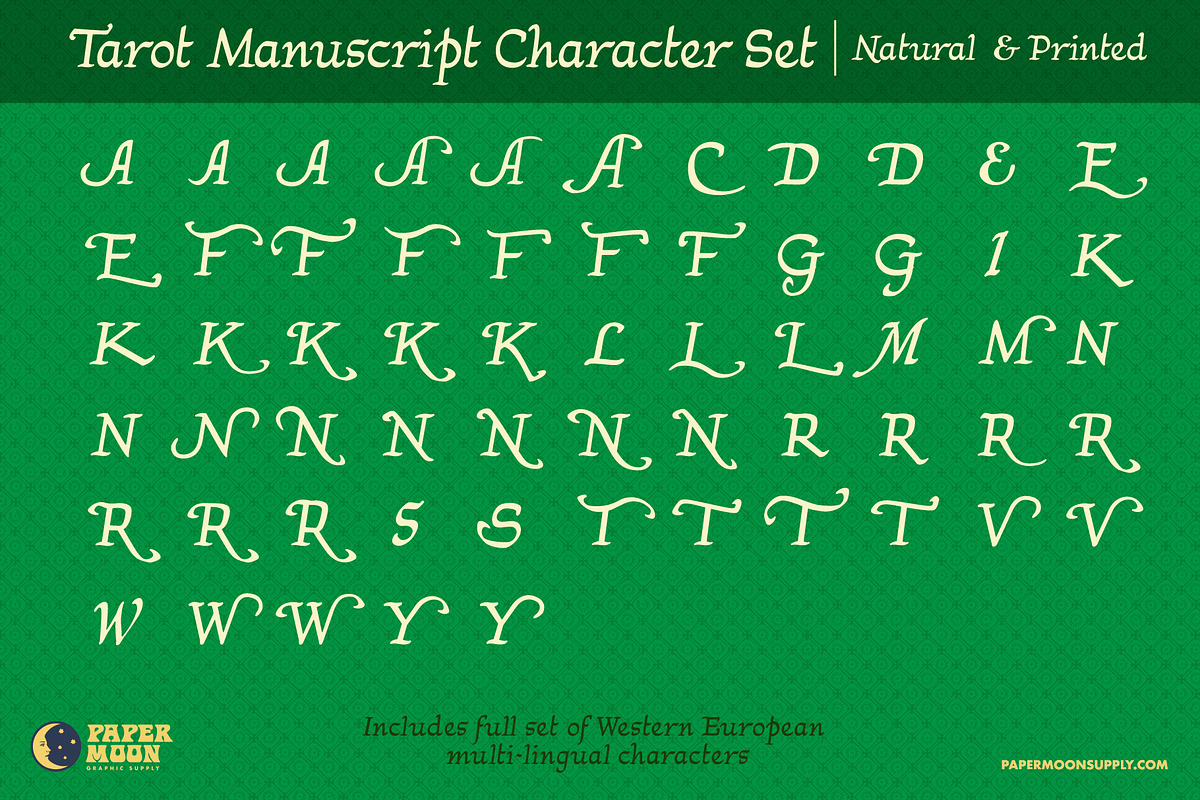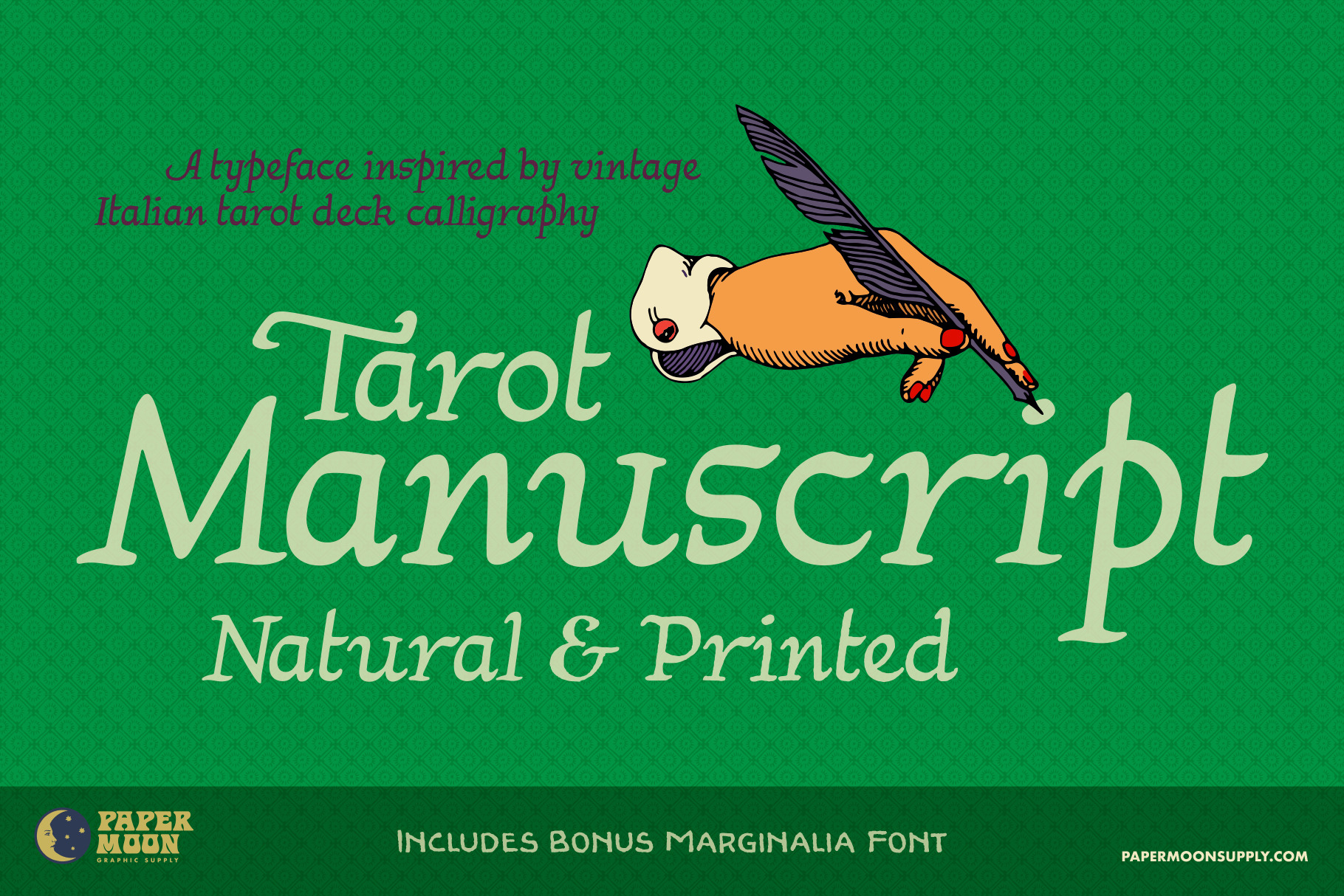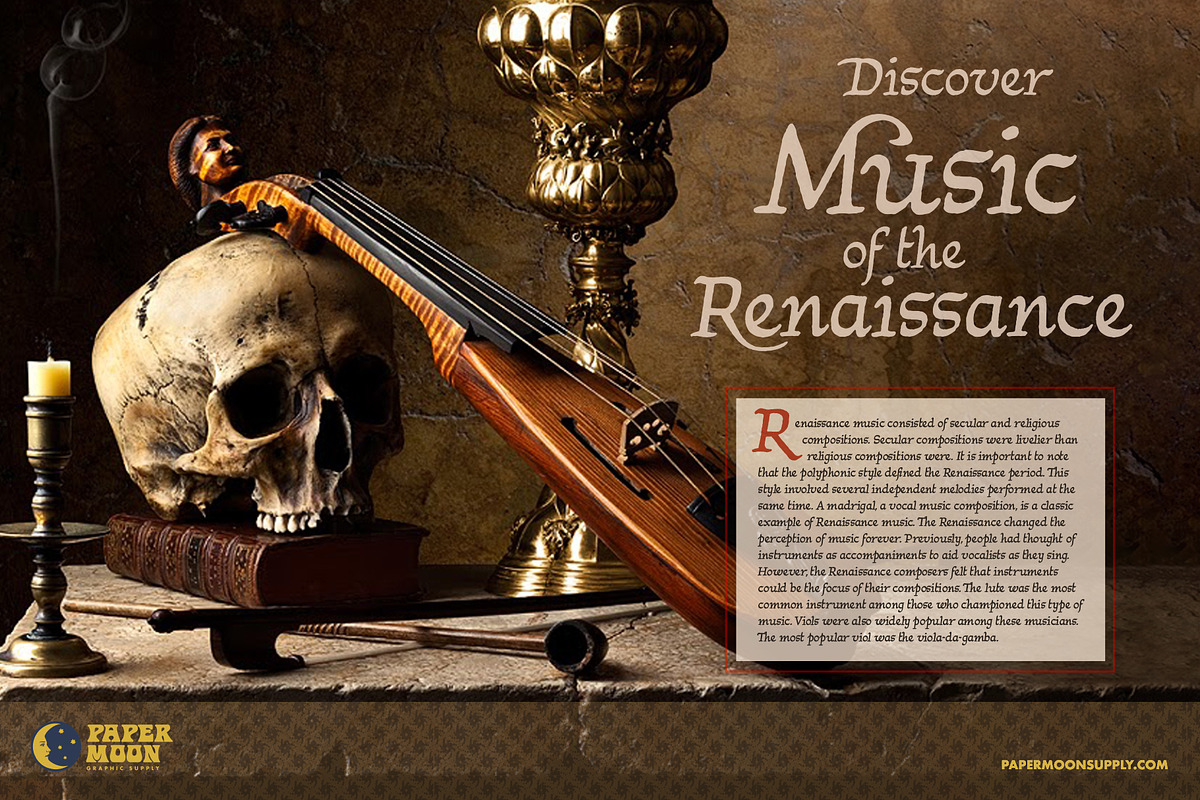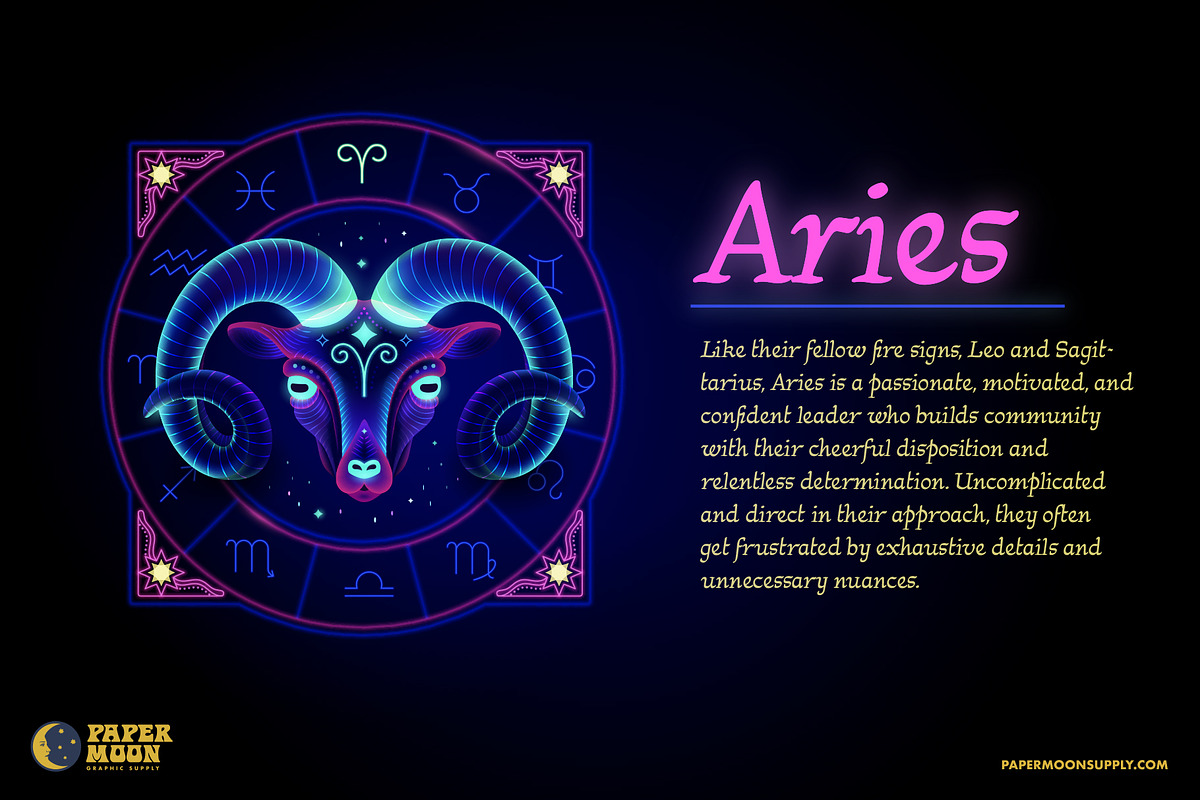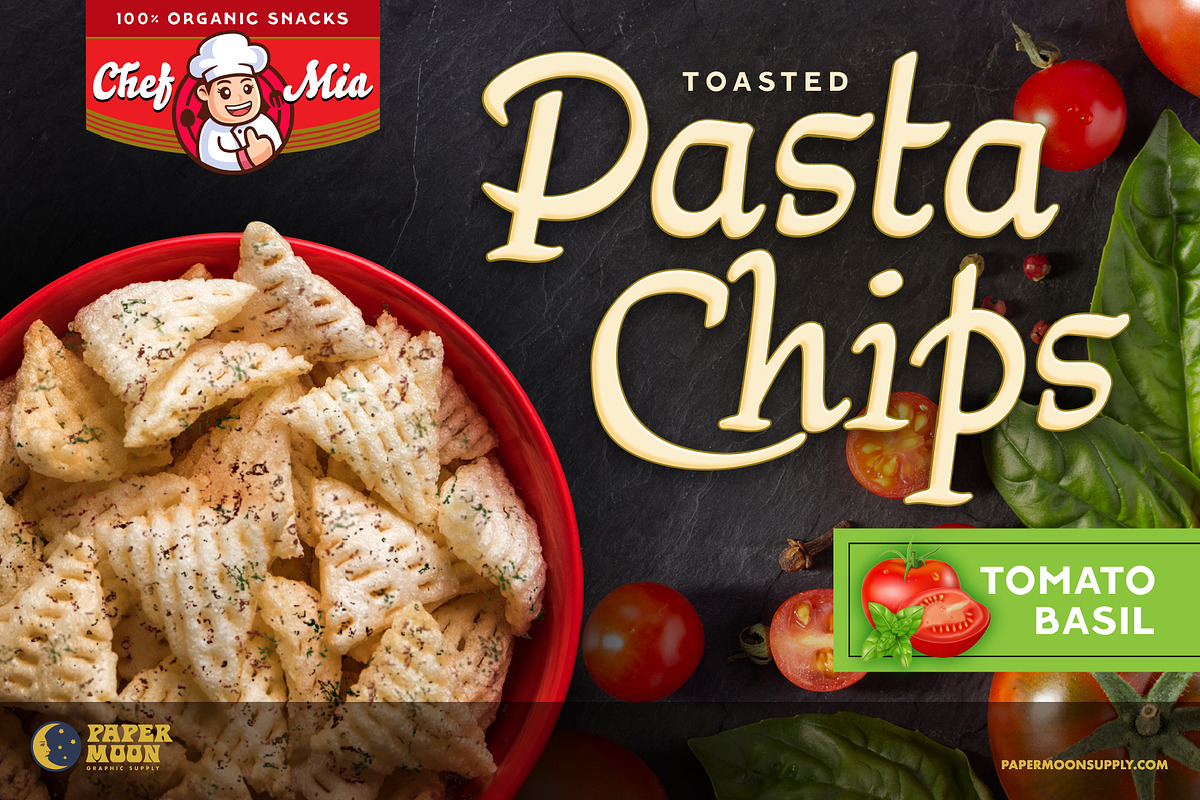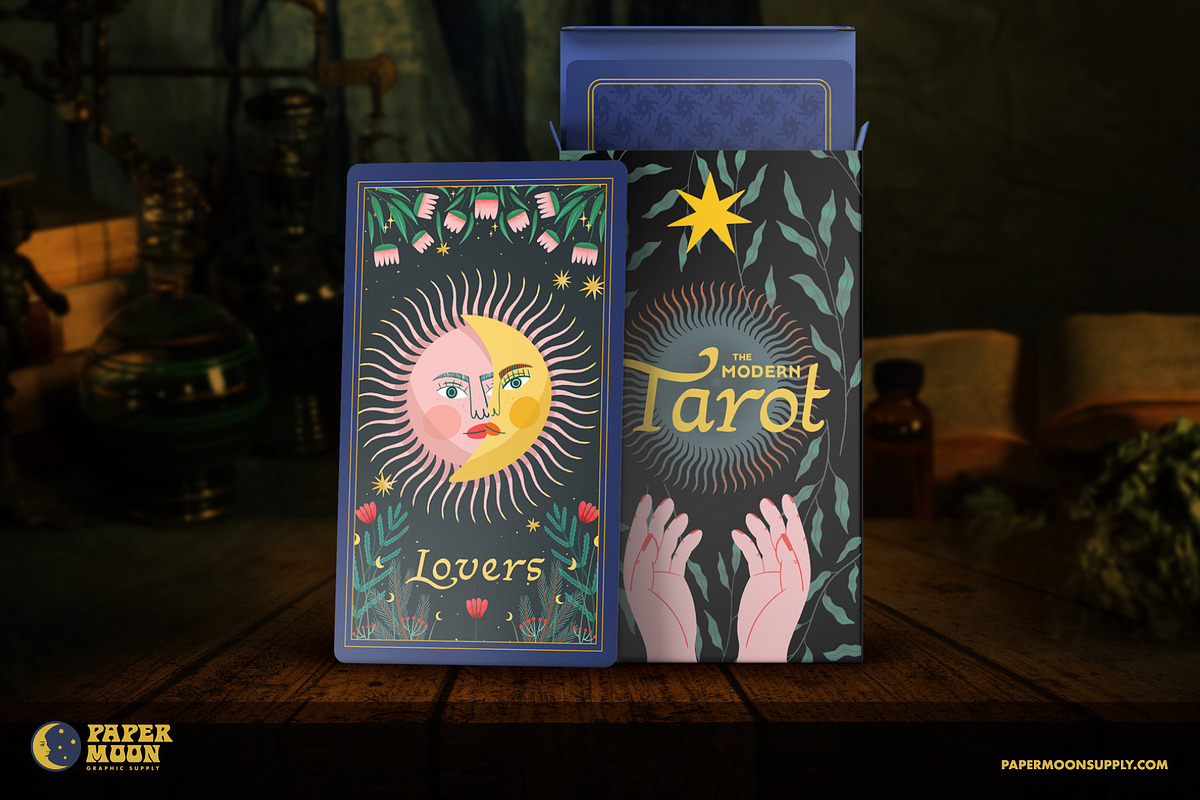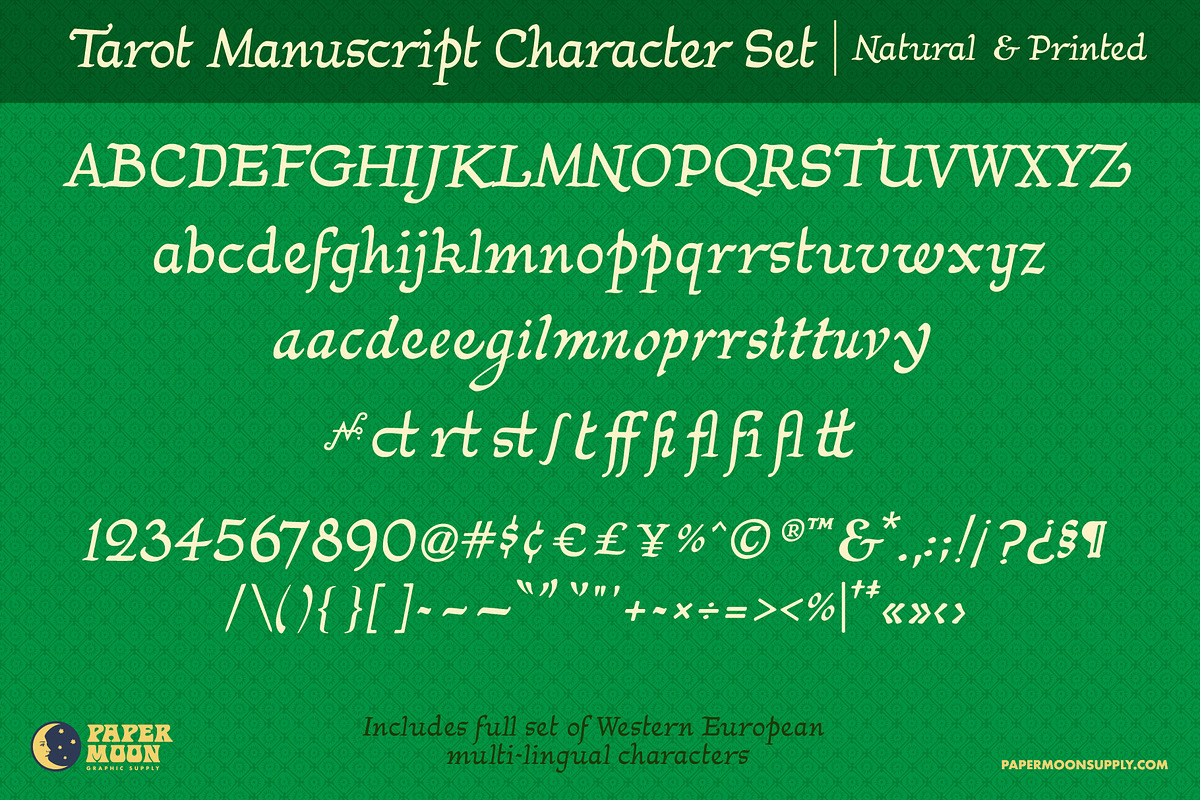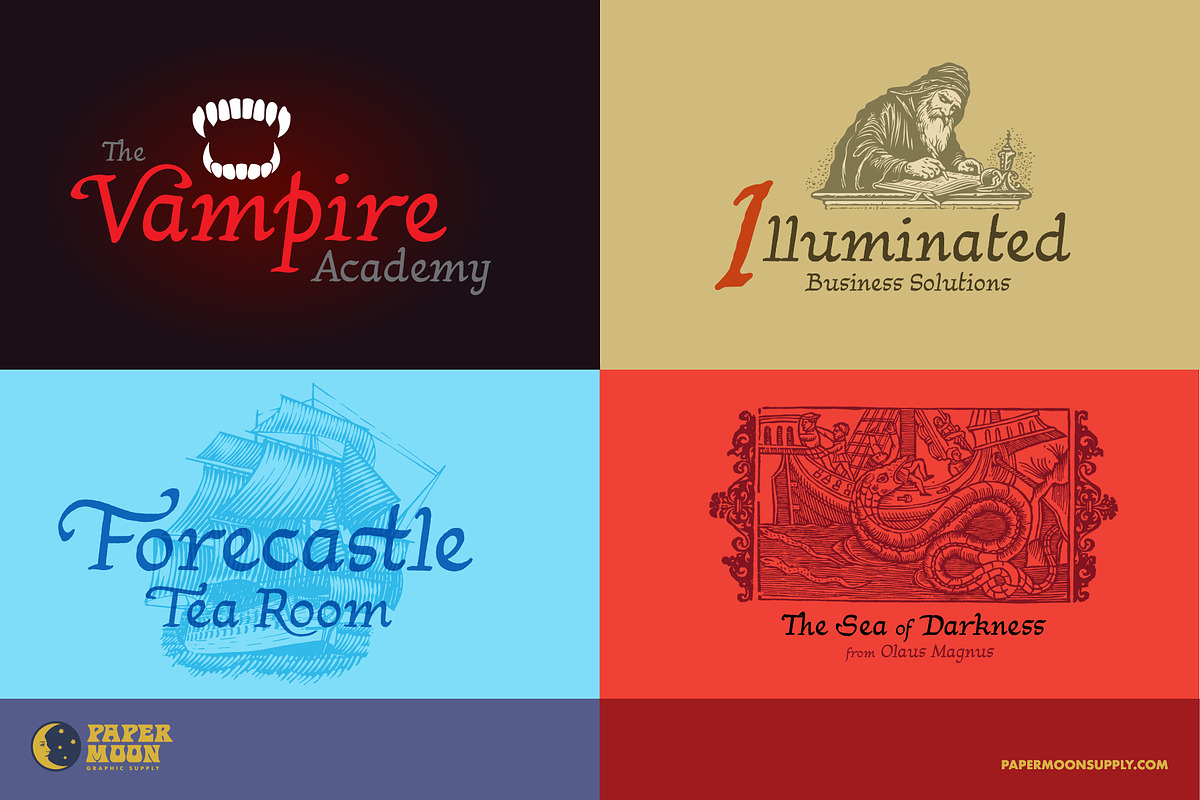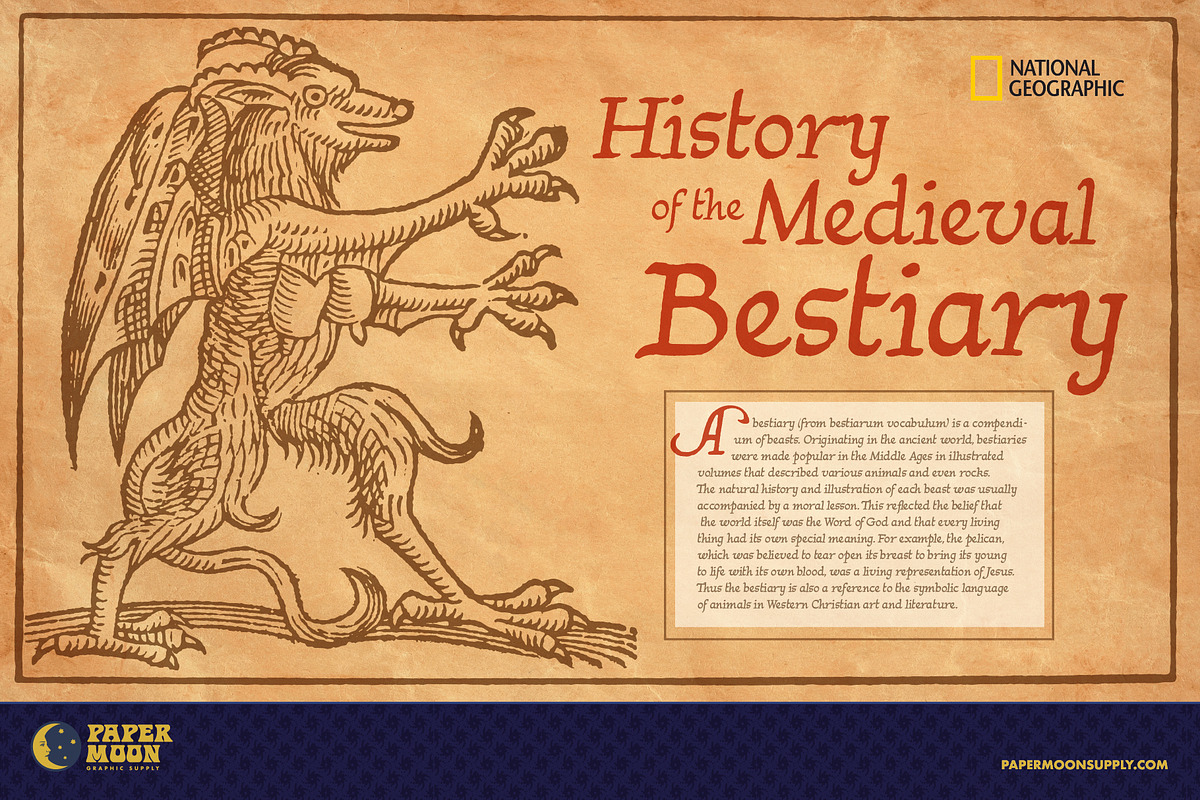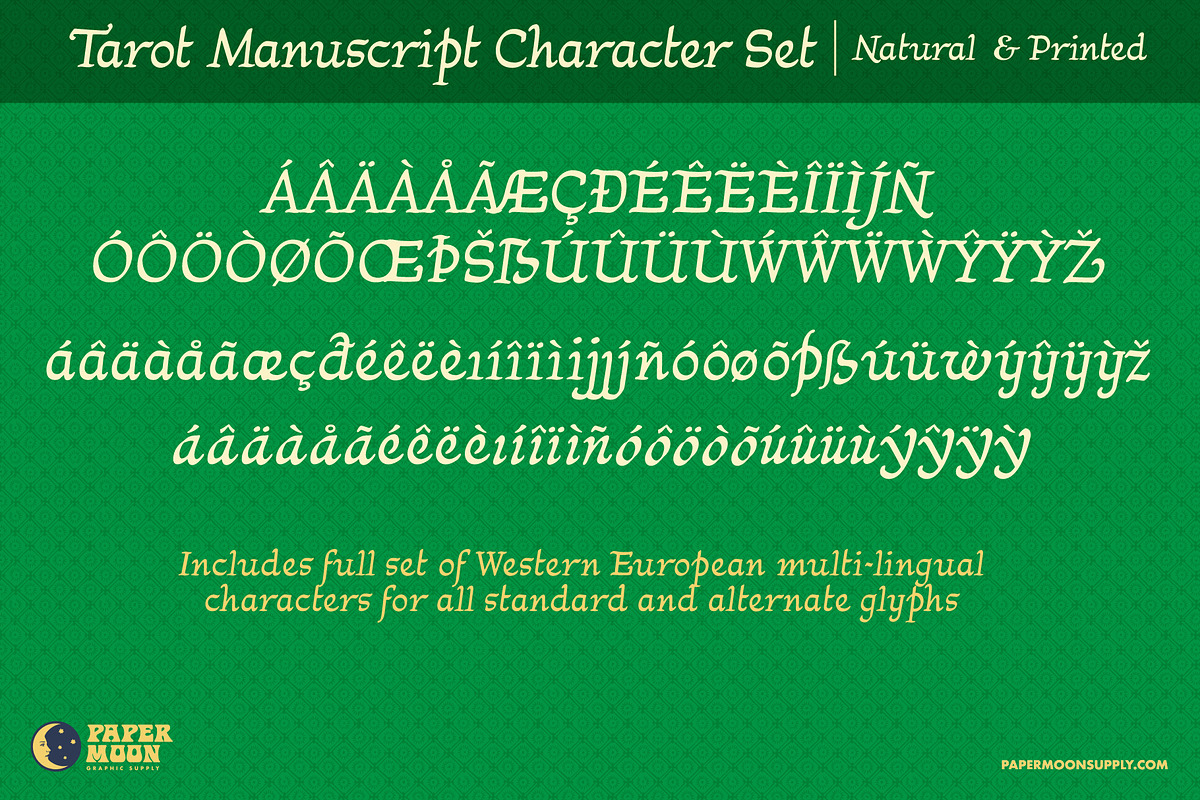
PM Tarot Manuscript Script Font
A new font inspired by Italian Medieval and Renaissance hand-lettering.
The PM Tarot typeface series began as a small personal project of digitizing the hand-lettering of the Rider-Waite Tarot. But over a six-month period in 2023, it expanded to 5 unique typefaces with many style variations.
With all the typefaces in the PM Tarot series, we've stayed true to the quirkiness and unique structure of the original lettering by including hundreds of alternate characters and ligatures. Even the clean, modern versions of the typefaces in the series maintain unique variations found in the original hand-lettering that deviate from standard type classifications.
The PM Tarot Manuscript letterforms are based on Italian Medieval and Renaissance lettering found in notebooks, journals, and hand-lettered manuscripts. This modern interpretation attempts to capture the style of the original letterforms while maintaining readability for modern design use.
- Full character set
- Multi-lingual support
- Over 250 glyphs, including alternate characters
- Highly-detailed “rough” letterpress printed-style edges to match our vintage-style clip art
- Clean version for modern designs